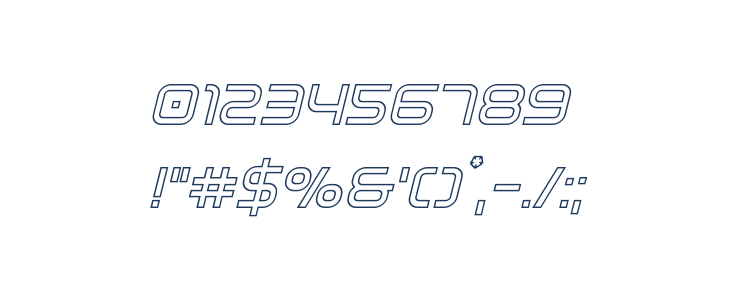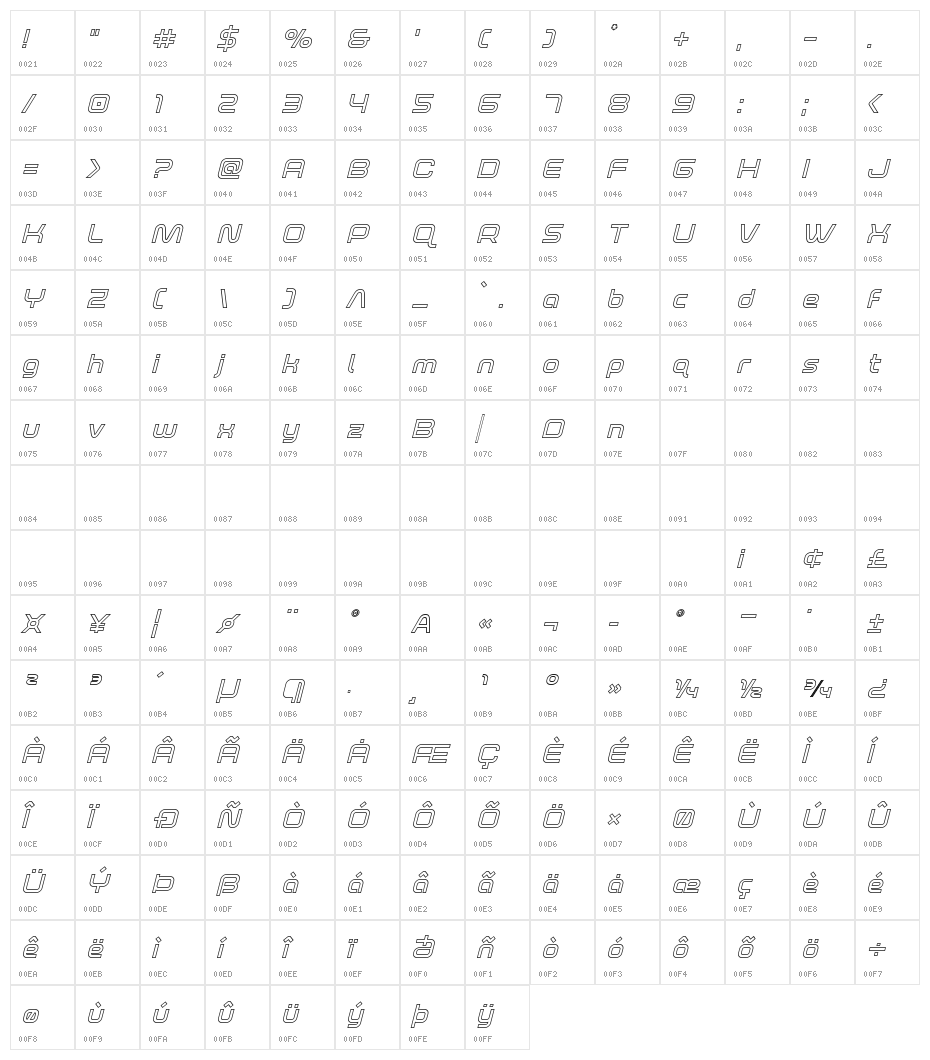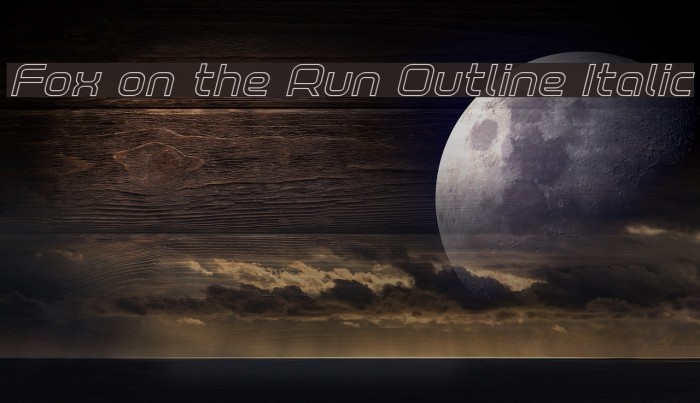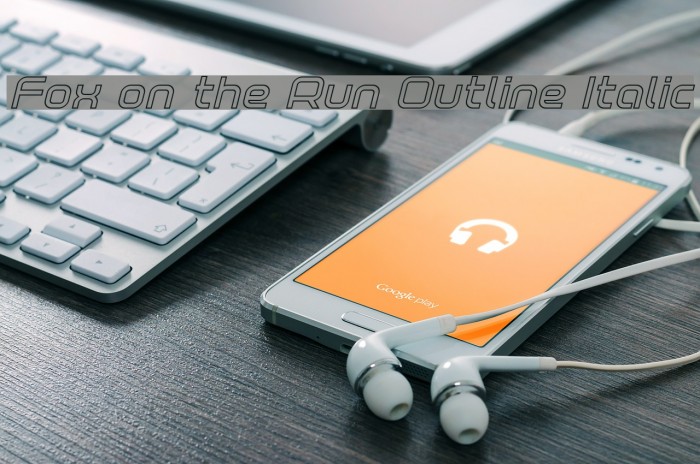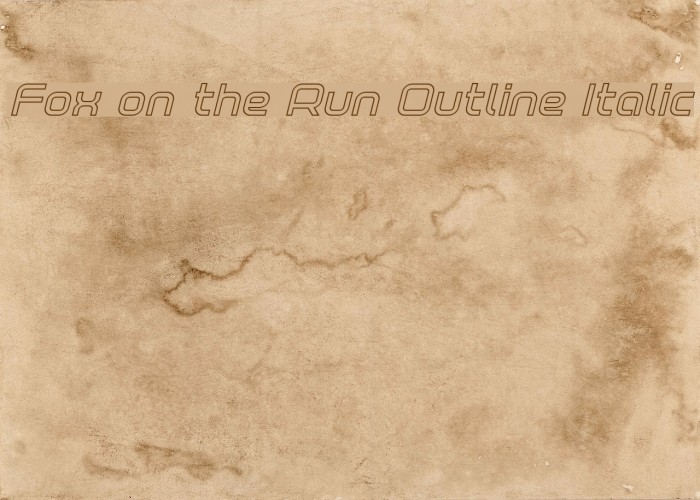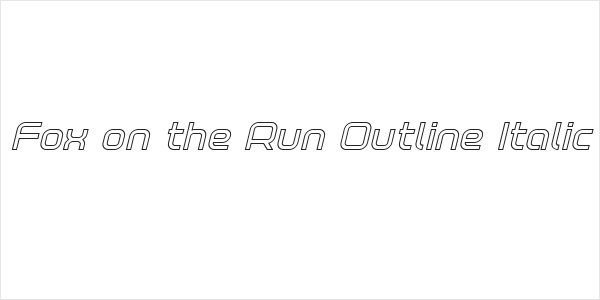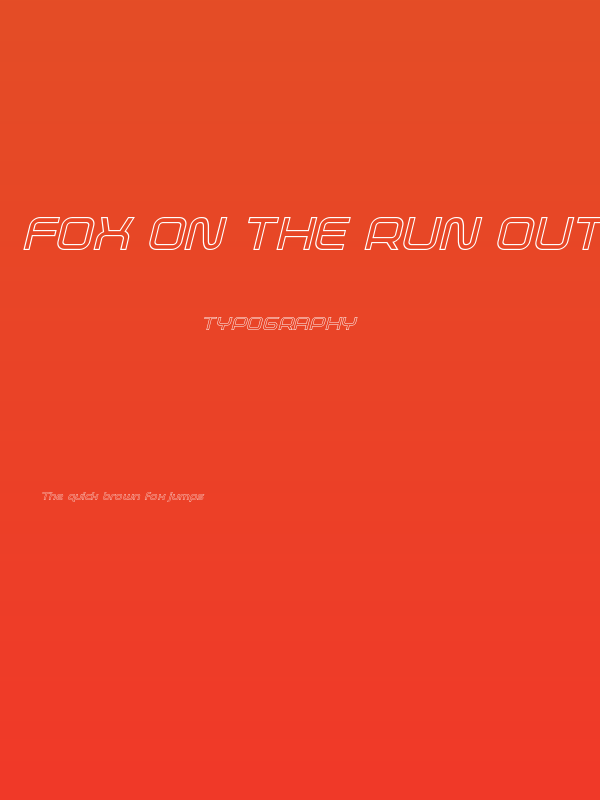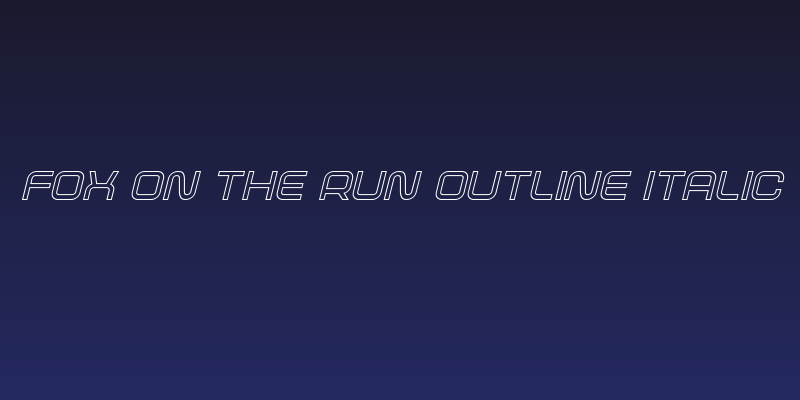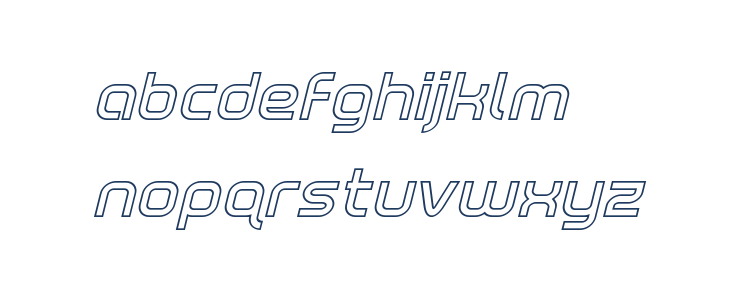
Fox on the Run Outline Italic Font
Fox on the Run Outline Italic Description
This font features a sleek, modern outline style with a distinct italic slant, giving it a dynamic and futuristic appearance. The uppercase and lowercase letters maintain a consistent geometric form, with smooth curves and sharp angles that create a sense of movement. The numbers and special characters follow the same design principles, ensuring uniformity across all glyphs. The outline effect adds a layer of sophistication, making it ideal for projects that require a contemporary and stylish touch. Its clean lines and open spaces enhance readability while maintaining a unique aesthetic.
| Proposed Projects | Ideal for branding, posters, headlines, and digital artwork that require a modern and stylish look. |